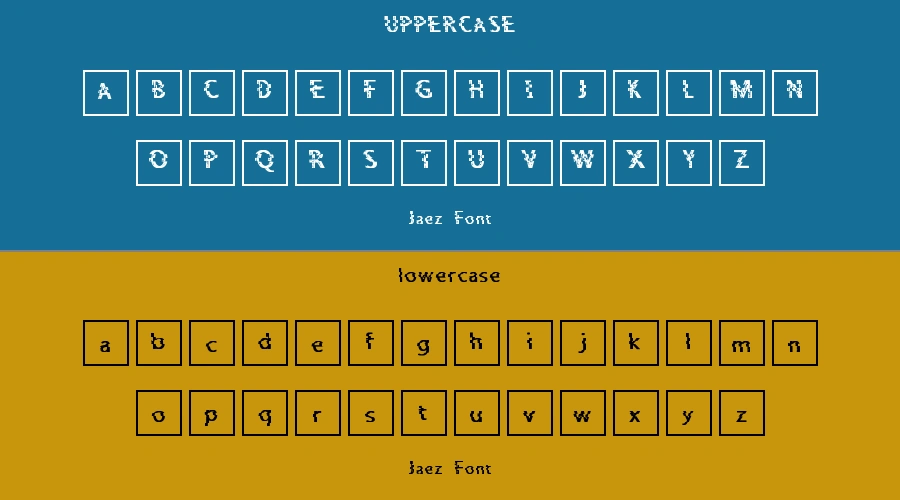
About Jaez Font
When typographic excellence matters most, Jaez Font delivers through its thoughtful blend of engineered curves and textural consistency. Specially crafted for magazine covers, it offers the accuracy and aesthetic refinement required for sophisticated design work. Every detail serves a purpose.
The character set showcases thoughtful details like hairline details alongside functional contextual alternates. This proves especially valuable in instruction steps, where body text reading directly influences results. Particular attention was paid to terminal style and industrial acceptance during development.